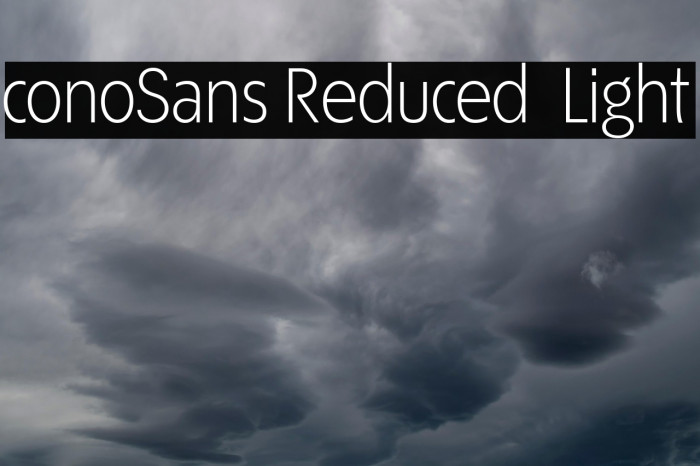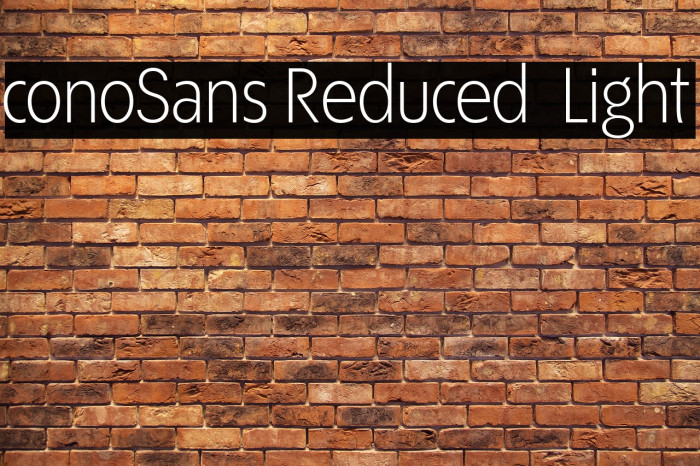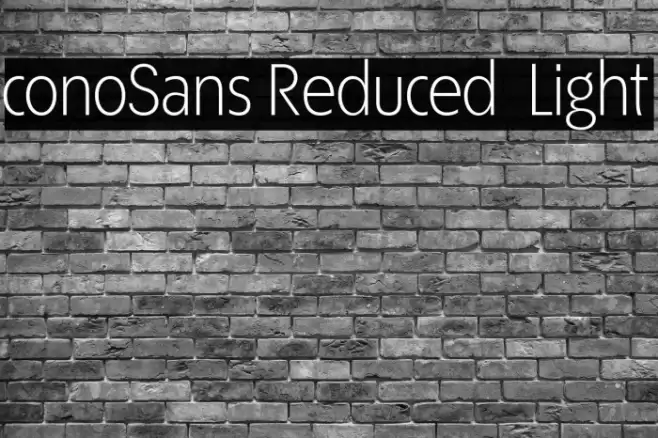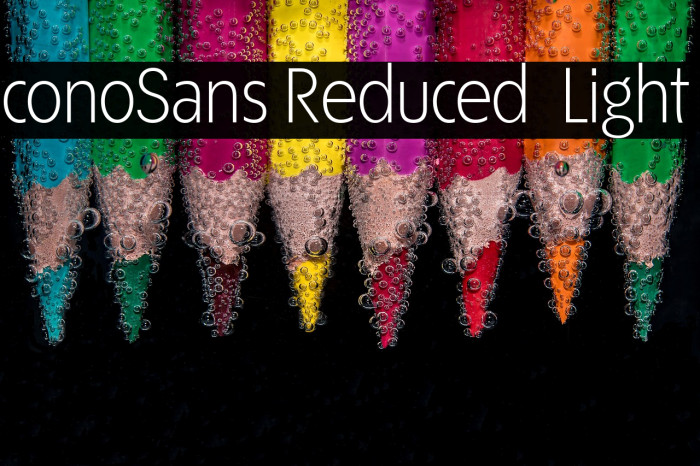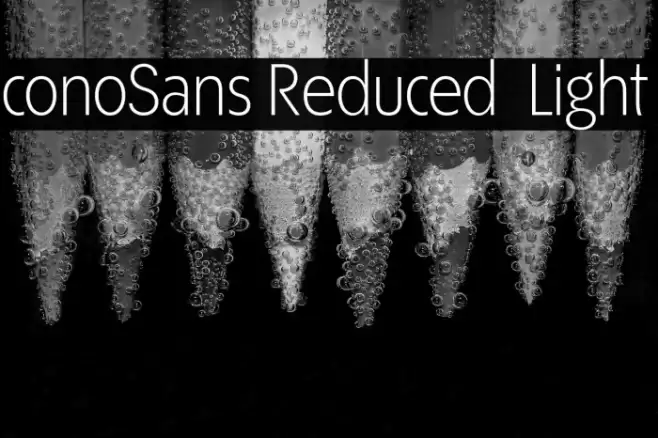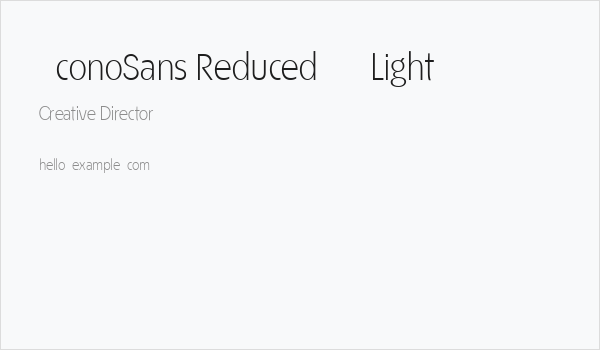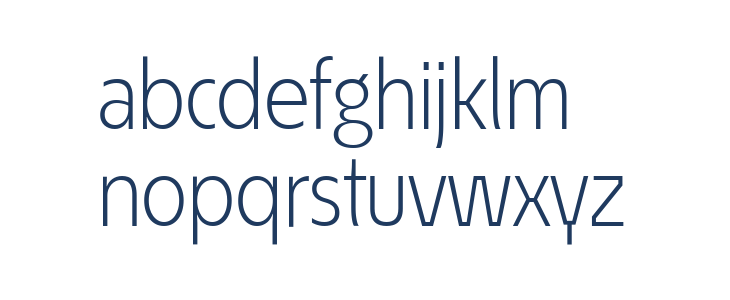
ÉconoSans Reduced 45 Light Font
ÉconoSans Reduced 45 Light Description
This font features a clean and modern sans-serif design, characterized by its geometric shapes and minimalistic style. The letters are evenly spaced with a consistent stroke width, giving it a balanced and harmonious appearance. The uppercase and lowercase letters maintain a uniform height, contributing to its sleek and professional look. The numerals and special characters are designed to match the overall aesthetic, ensuring versatility across various applications. Its simplicity and clarity make it suitable for both digital and print media, providing excellent readability.
| Proposed Projects | Ideal for corporate branding, web design, editorial layouts, and user interfaces. |